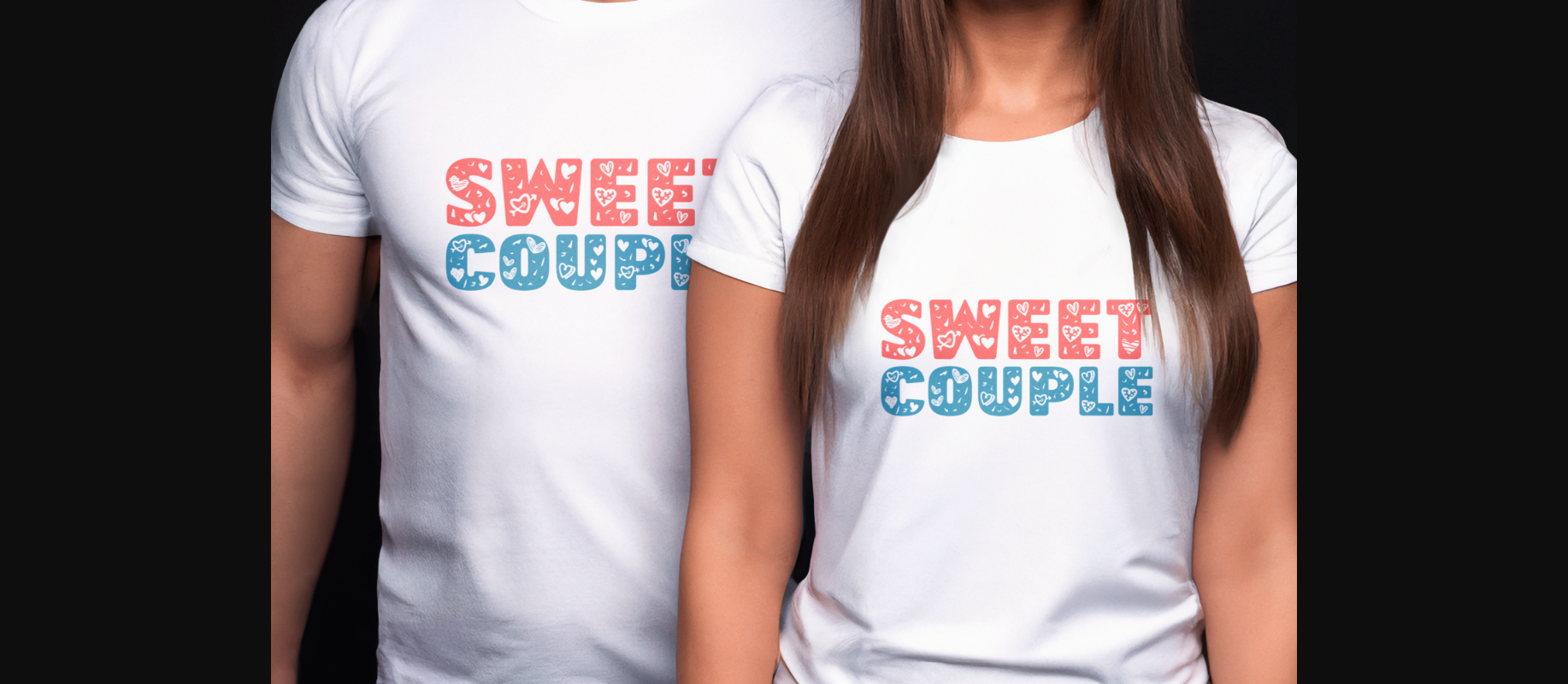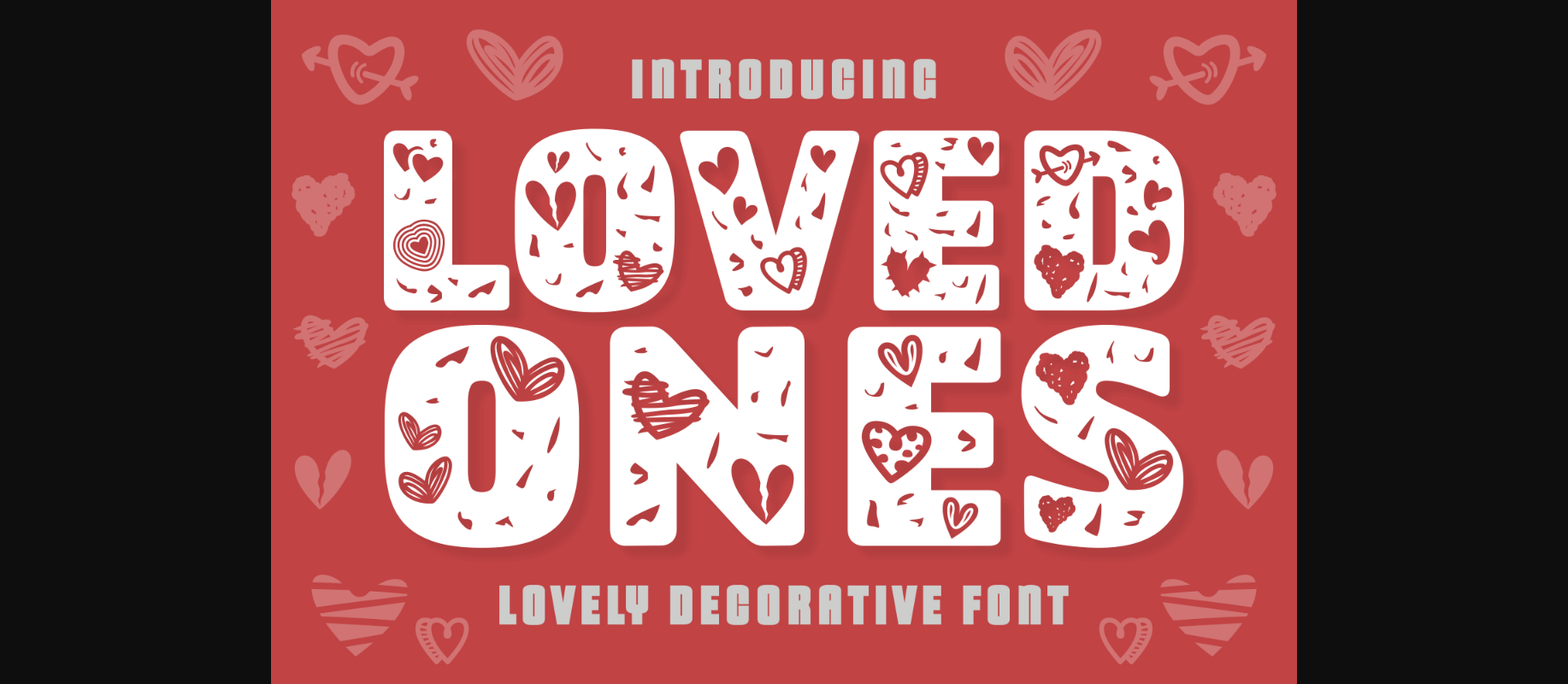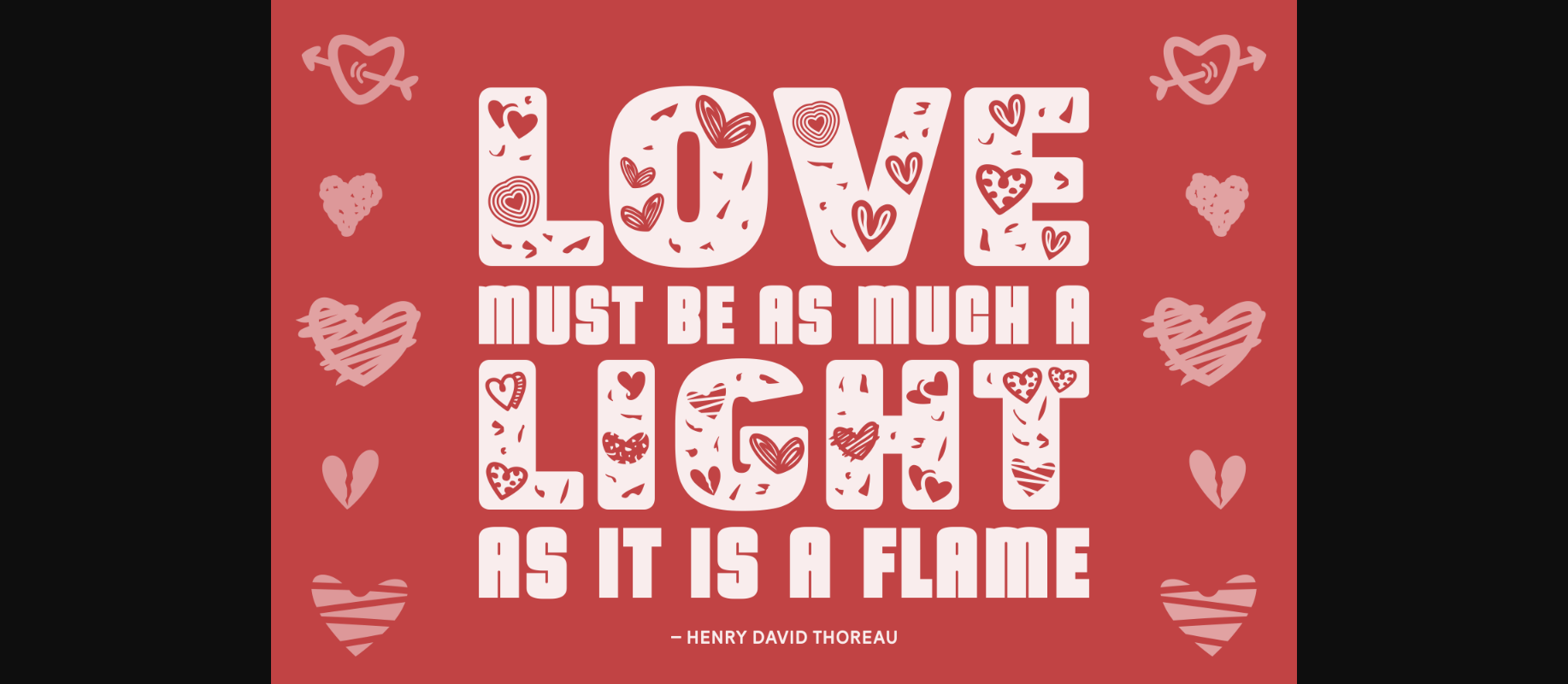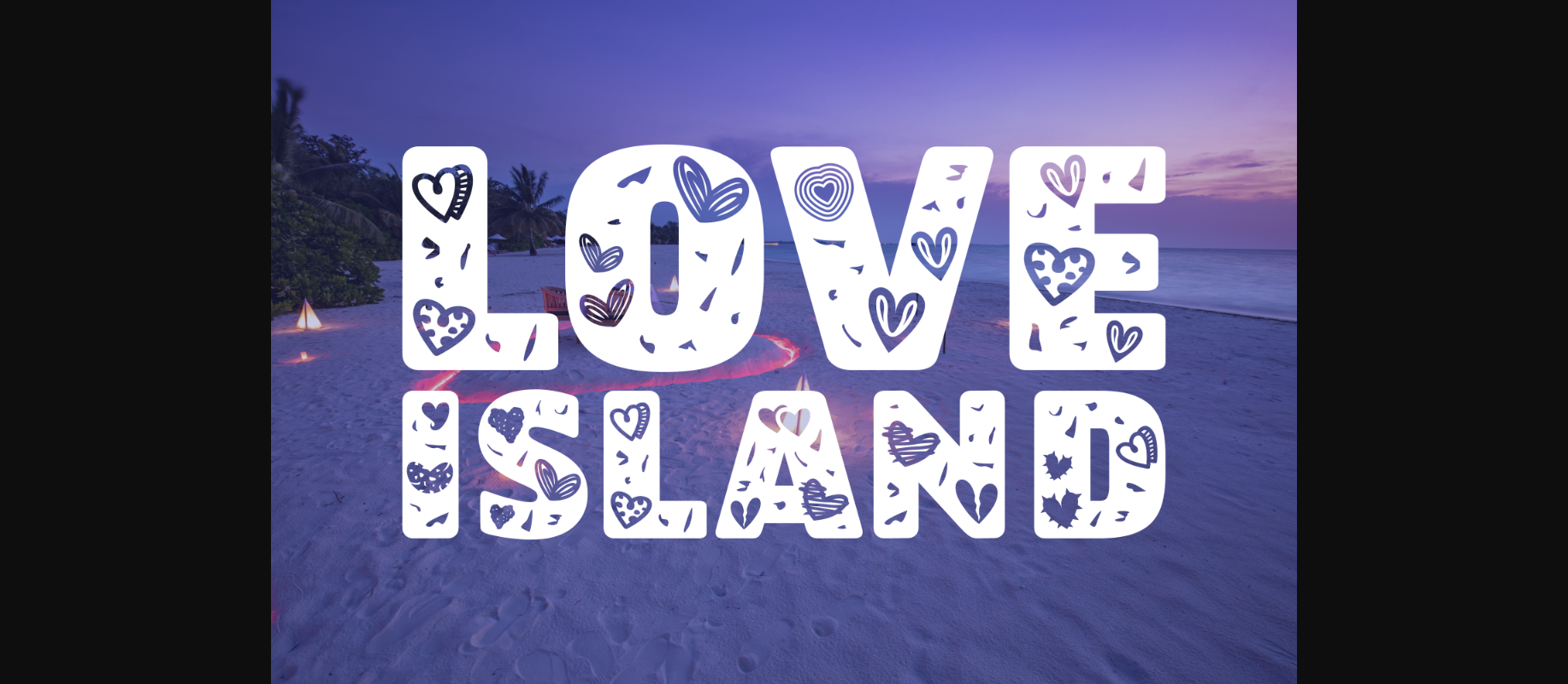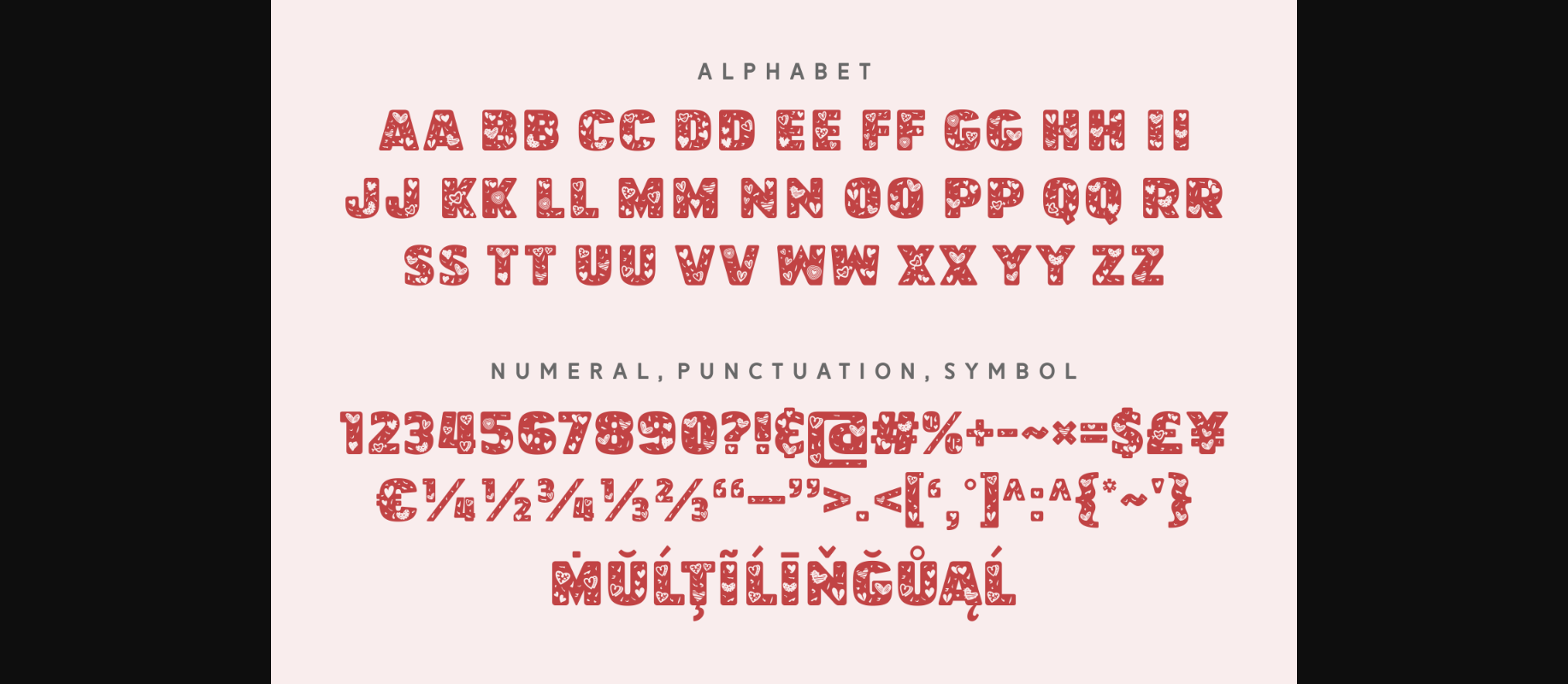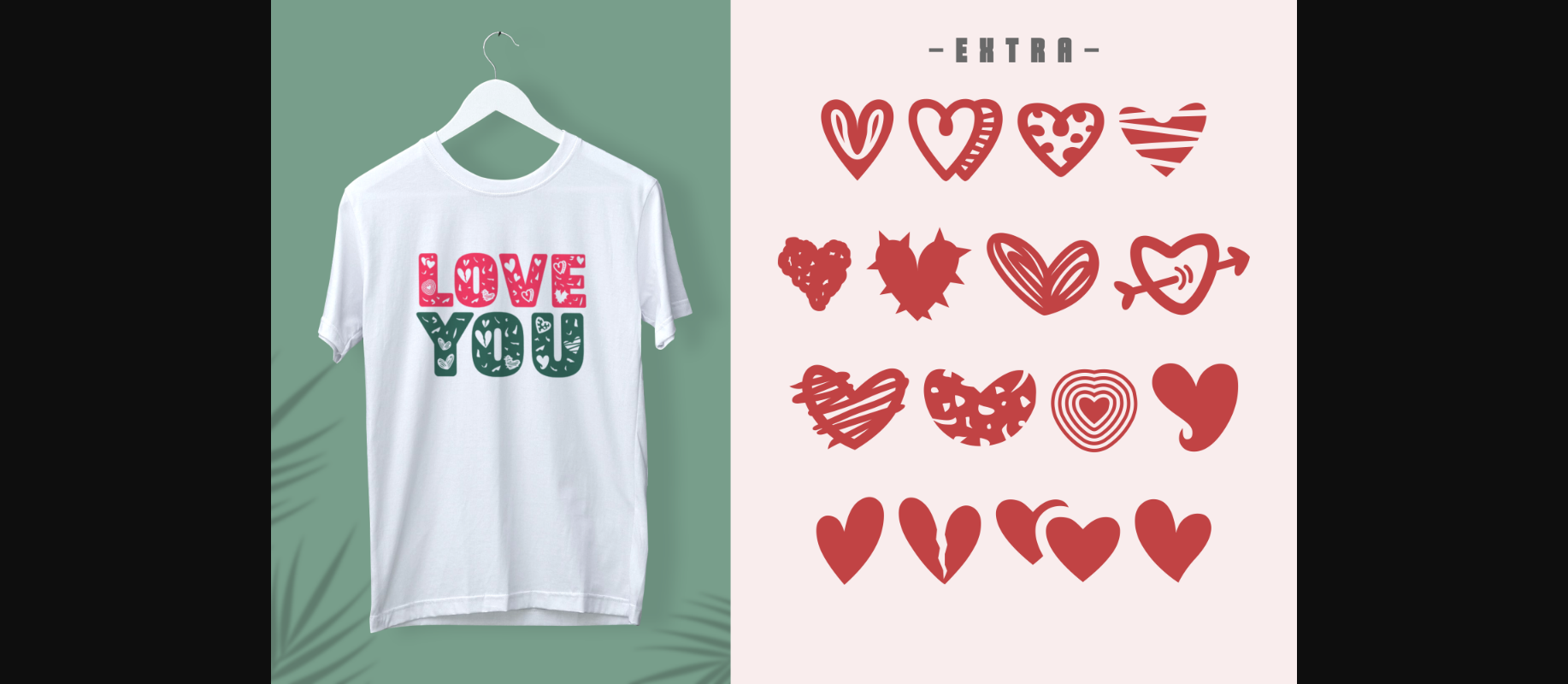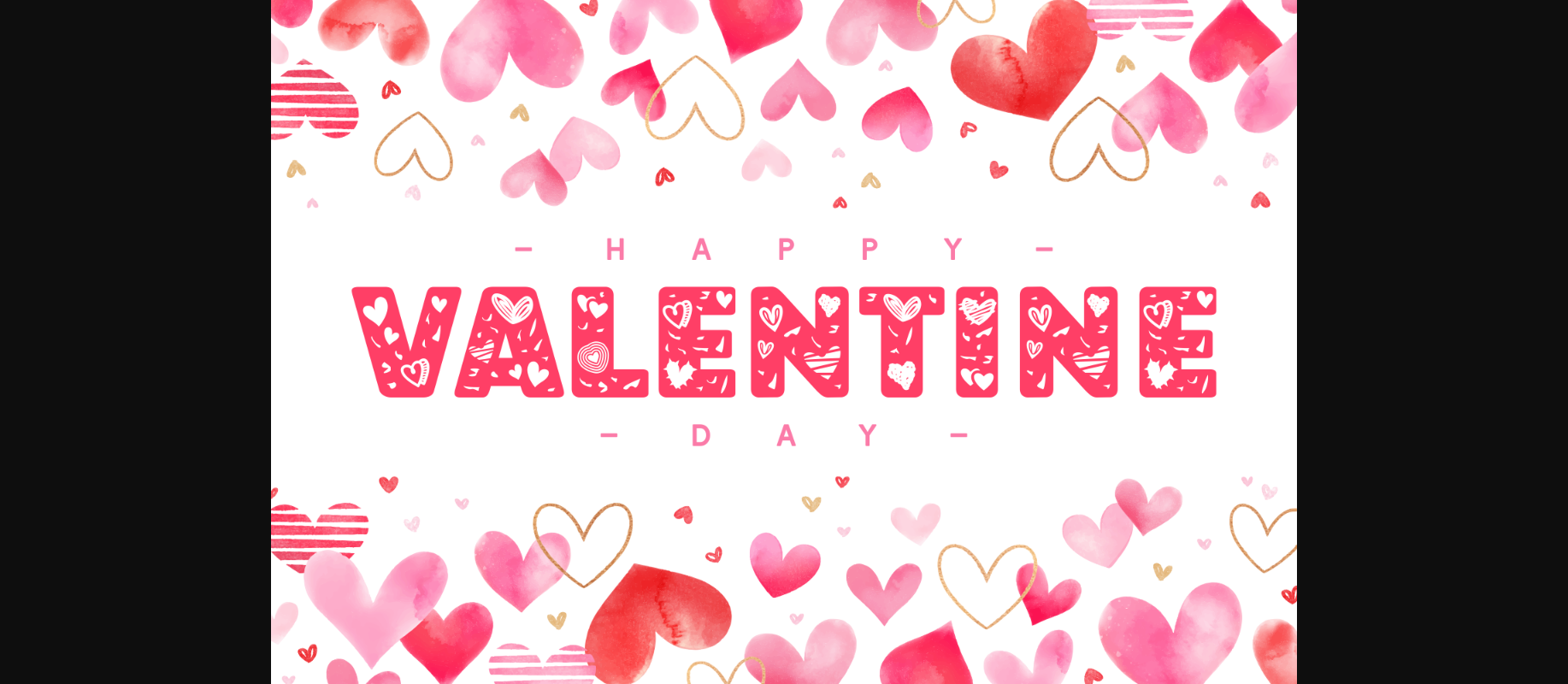
HomeDecorative FontsLoved Ones Font Decorative Fonts Loved Ones Font FacebookXPinterestWhatsApp 1 of 9 ... Loved Ones Font Poster 2... Loved Ones Font Poster 3... Loved Ones Font Poster 4... Loved Ones Font Poster 5... Loved Ones Font Poster 6... Loved Ones Font Poster 7... Loved Ones Font Poster 8... Loved Ones Font Poster 9... About Loved Ones Font Loved Ones is the cutest decorative font, specially designed for Valentine’s Day. Add it to your most romantic designs, and you will notice how they become even more impressive. DOWNLOAD NOW People also explored Subscribe Family Font Goldfish Font Yamatoshi Font Nooleigh Font Gameday Vibes Font Naturella Font Summer Autumn Font Simpleline Font Hello Festive Font 269 0 TagsLoved Ones Font Previous articleUnicorn Monogram FontNext articleSave Love Font LEAVE A REPLY Cancel reply Comment: Please enter your comment! Name:* Please enter your name here Email:* You have entered an incorrect email address! Please enter your email address here Website: Save my name, email, and website in this browser for the next time I comment. Personal Use Free Catandra Script Personal Use Free Read more about this font Engine Personal Use Free Read more about this font Market Love Personal Use Free Read more about this font Denisha Personal Use Free Read more about this font BLOG 5 Fonts That Will Dominate Design Trends in 2026 5 Fonts for 2026 That Will Dominate Design Trends Typography plays a critical role in visual communication, and as we look ahead to 2026, it’s... Free vs Paid Fonts: Why Investing in Premium Fonts Is Worth It Top 10 Handwritten Fonts That Elevate Your Designs Top 7 Google Fonts Alternatives for Faster and Privacy-Friendly Web Design (2025)